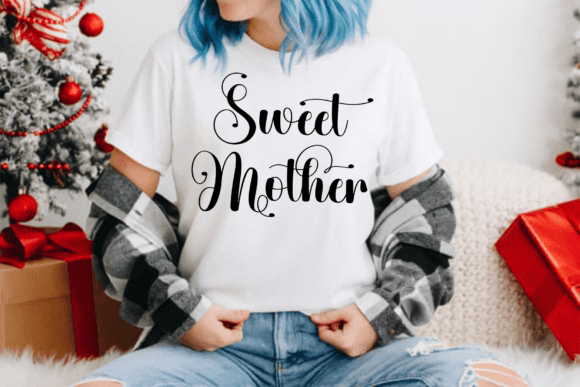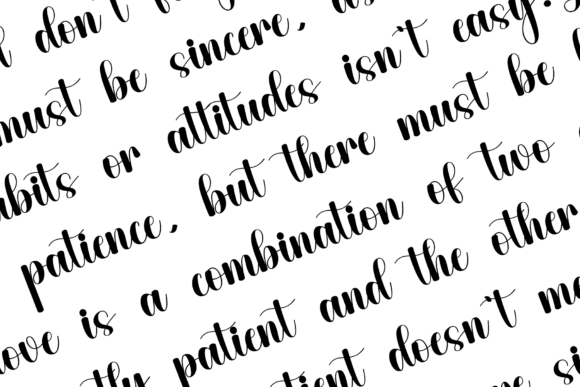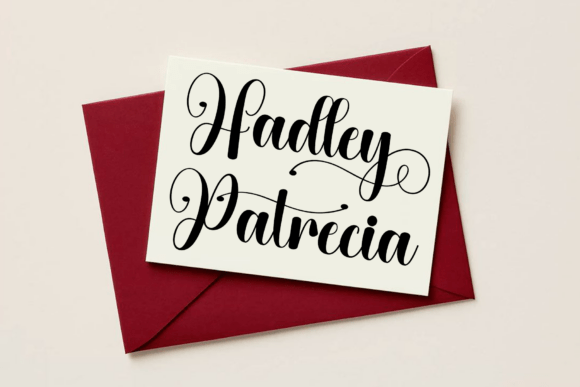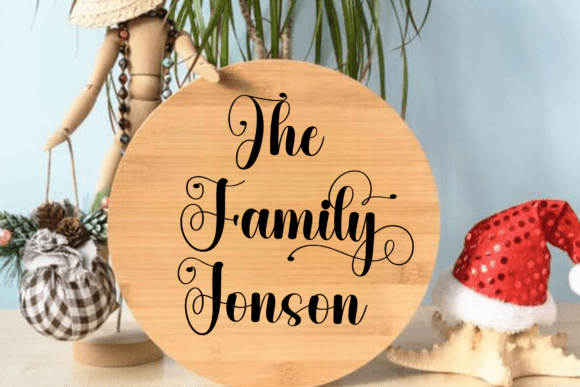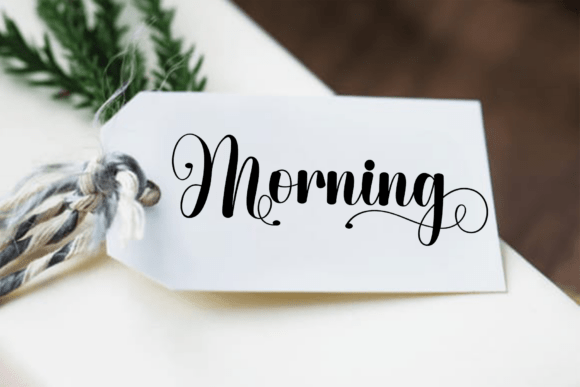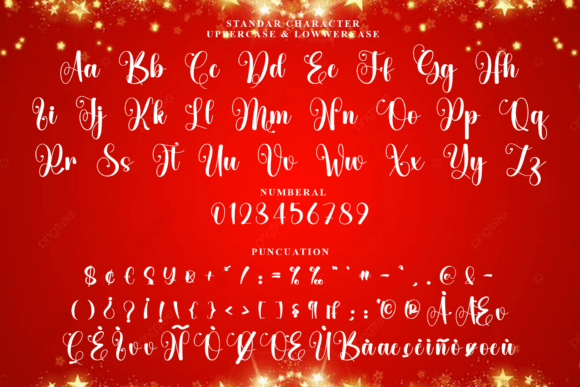
Introduction to Shiny Christmas Font Font
Fonts play a crucial role in design, and the Shiny Christmas Font font is a typeface that brings both character and versatility to any project. Whether you’re working on a branding project, a website, or a print design, the Shiny Christmas Font font offers a unique style that can elevate your work.
Shiny Christmas is a luxurious and graceful calligraphy script font, defined by its exquisite, elongated loops and flowing swashes.
This is a quintessential romantic script typeface with a strong focus on dramatic capital letters and impressive terminal swashes that can be used to underscore or connect words The high-contrast strokes—thin upstrokes and thicker downstrokes—give it a classic, formal elegance.
Key Features of Shiny Christmas Font Font
Why Choose Shiny Christmas Font Font?
The Shiny Christmas Font font is more than just a typeface – it’s a design tool that helps you communicate your message with style and clarity. Its unique character set and versatile design make it suitable for a wide range of applications, from elegant invitations to bold headlines.
With its carefully crafted letterforms and balanced proportions, the Shiny Christmas Font font ensures readability and visual appeal across all mediums.
What makes Shiny Christmas Font font special?
The Shiny Christmas Font font stands out with its unique design, exceptional readability, and versatility across various design applications.